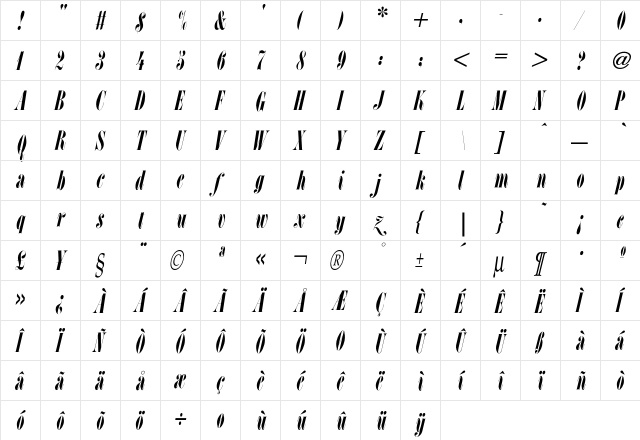
L SCCondensedItalic Font Preview
L SCCondensedItalic
L SCCondensedItalic Font Details
| Style | SCCondensedItalic |
Design Context for L Typeface
L is a composed and adaptable typeface that performs quietly and consistently across a wide range of design contexts. The dynamic lean of this cut emphasises speed and emphasis in any layout. The condensed width makes it efficient for tight spaces without sacrificing legibility.
Pro Tip: Try L for annotation and caption copy alongside an upright companion — the contrast in angle creates a dynamic but ordered typographic system.